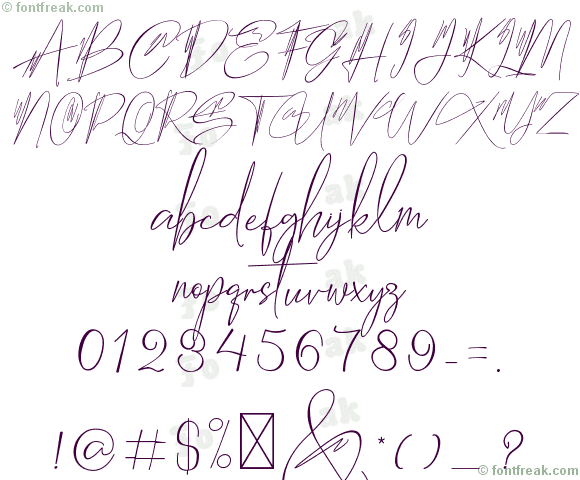
Hantoria Signature NoLigature
Hantoria Signature NoLigature, crafted by Eknoji Studio, is a stunning handwritten font that embodies a sophisticated elegance, making it an exceptional choice for various design projects. This script font features fluid strokes that convey a personal touch, while its lack of ligatures offers a clean and contemporary look. The stroke weight varies throughout, providing a dynamic visual appeal that enhances its artistic character. The spacing is well-balanced, allowing for easy readability, which is essential for both digital and print applications.
This font is particularly well-suited for wedding invitations, where its elegant style can beautifully capture the essence of romance. Additionally, it shines in branding materials for boutique shops or artisanal businesses, lending a personal touch that resonates with customers. Hantoria Signature NoLigature is also ideal for restaurant menus, offering a sophisticated flair that enhances the dining experience. Graphic designers can leverage its unique aesthetic for social media graphics, ensuring that their content stands out in a crowded digital landscape. Content creators and bloggers will find this font perfect for adding a touch of personality to their online presence.
Targeted at graphic designers, small business owners, and content creators, Hantoria Signature NoLigature is designed to elevate any project with its distinctive charm. The font's ability to evoke a sense of warmth and authenticity makes it a popular choice among creatives looking to leave a lasting impression.